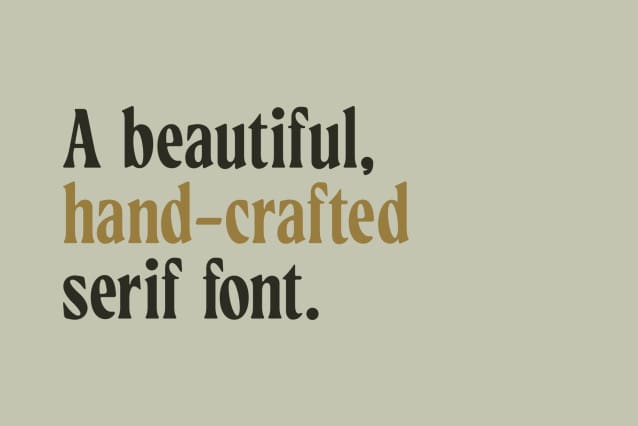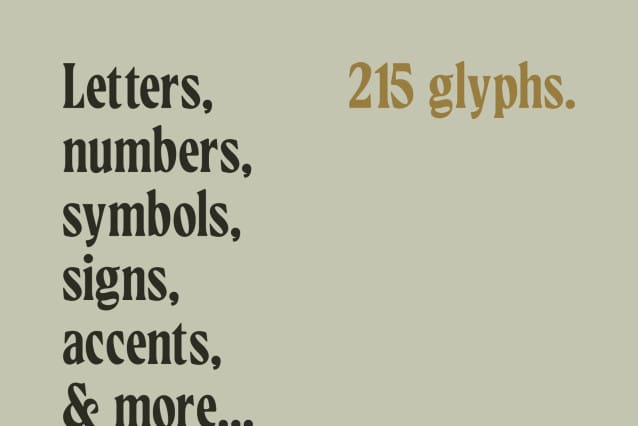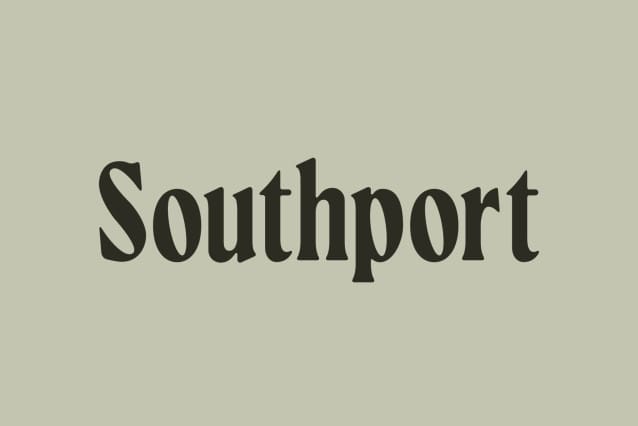
Southport Font
Southport Font is an elegant, hand-crafted serif font with a warm and familiar feel. This font is a great fit for high-end branding, logo designs, magazines, product packaging & invitations.